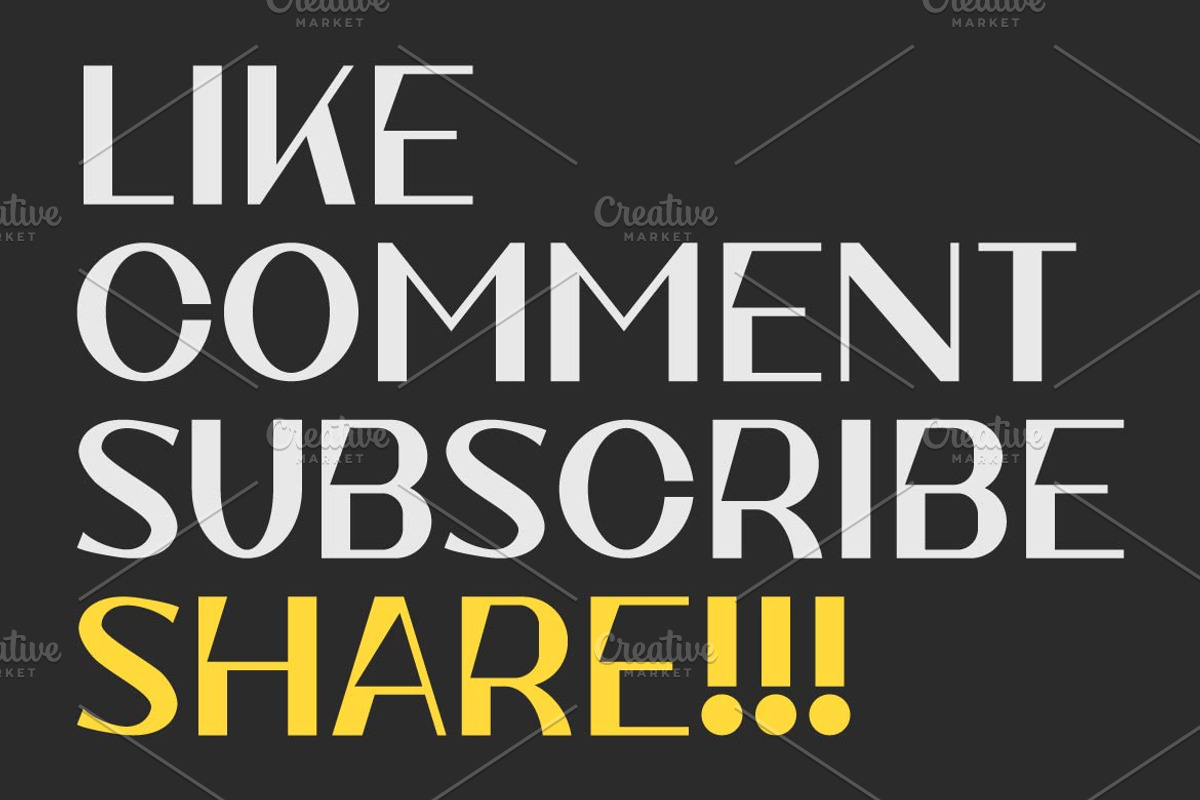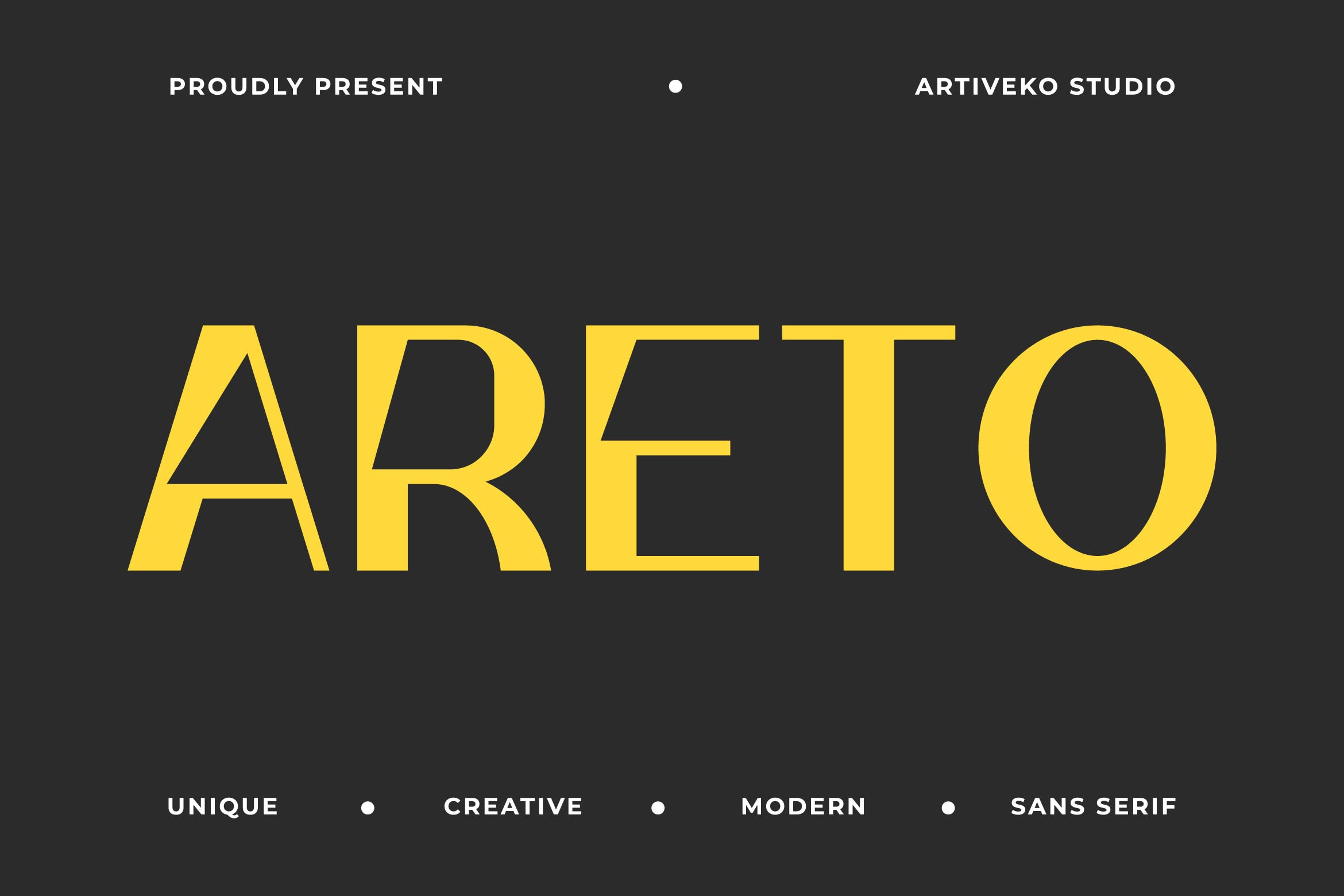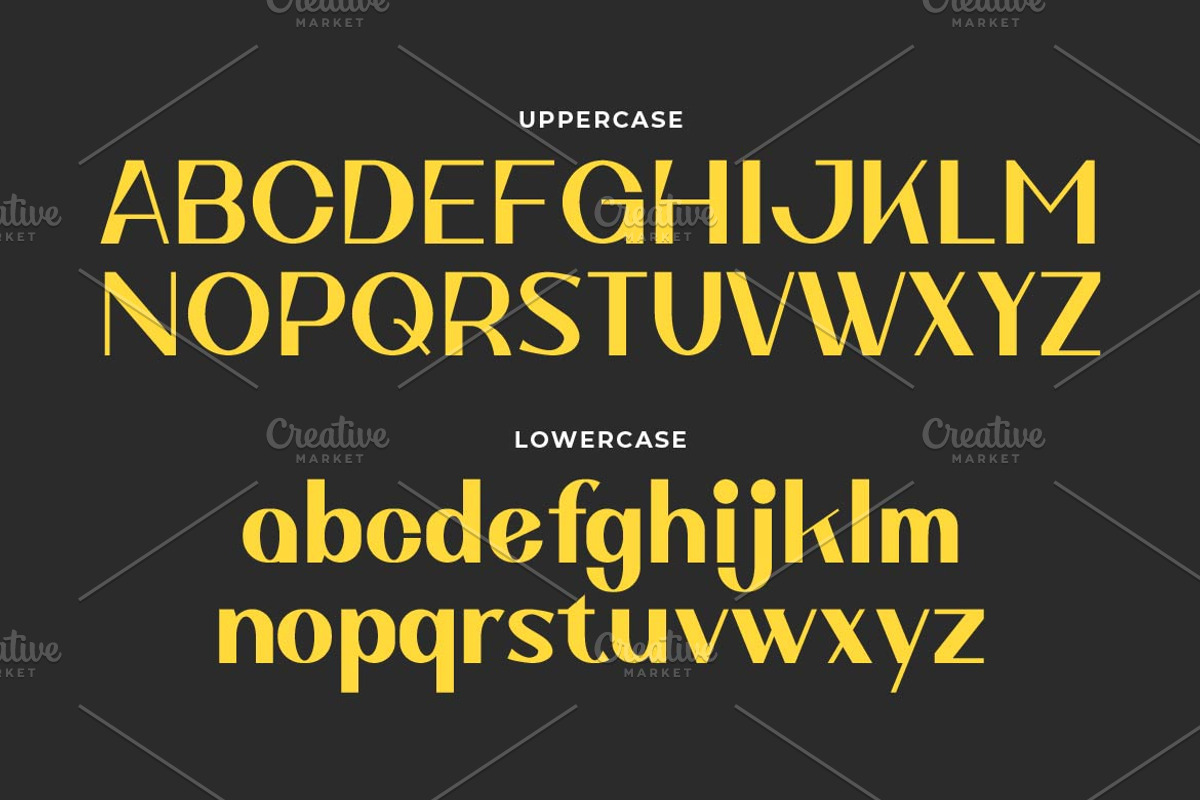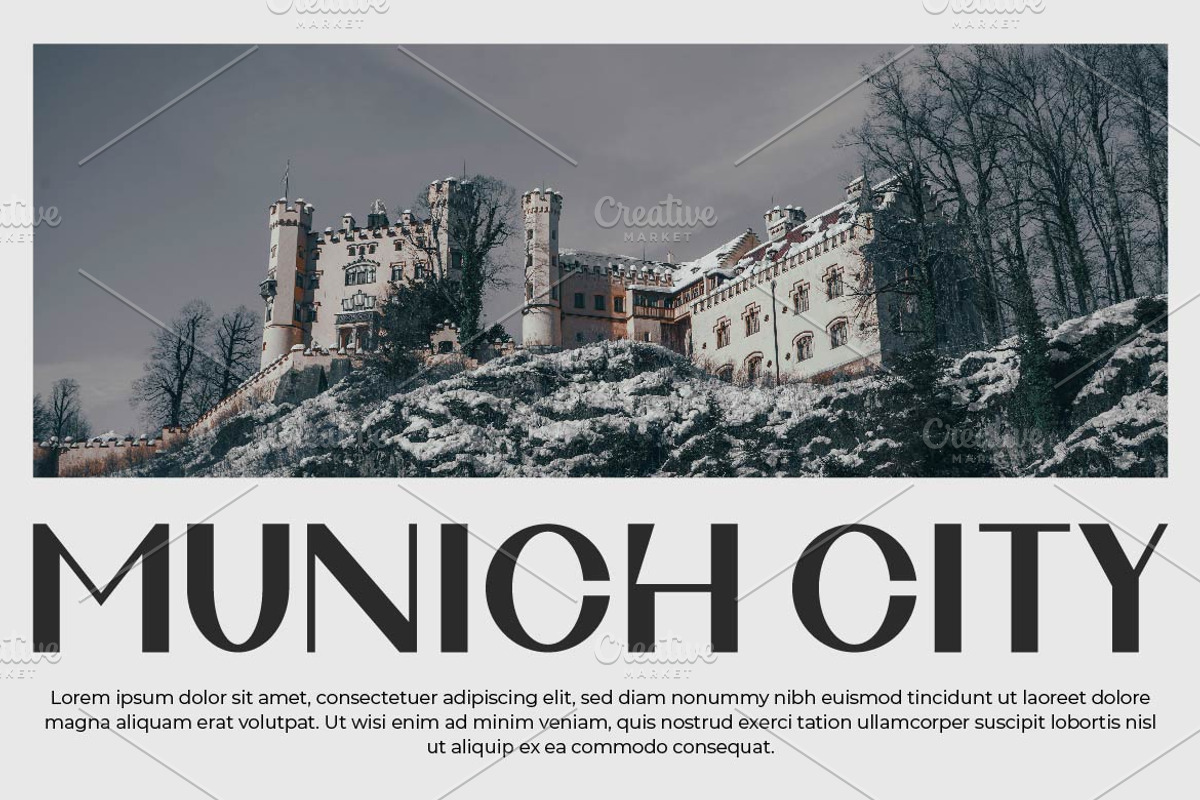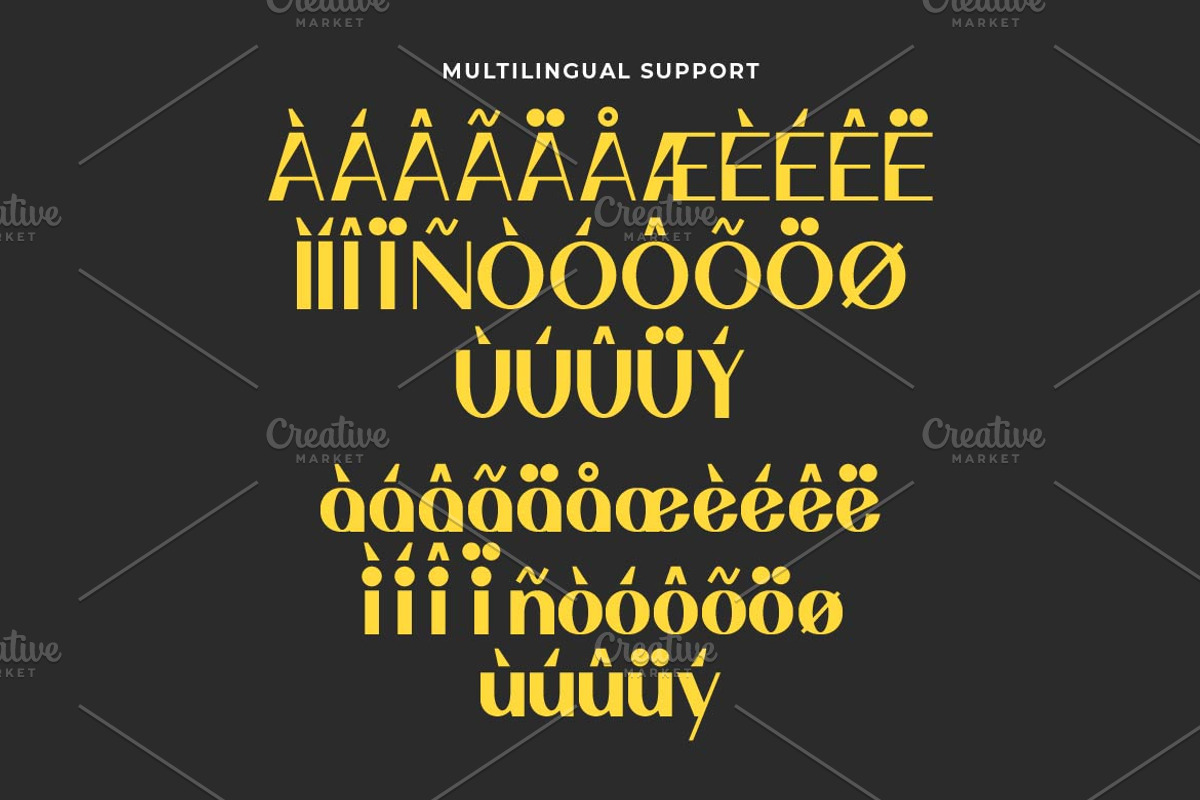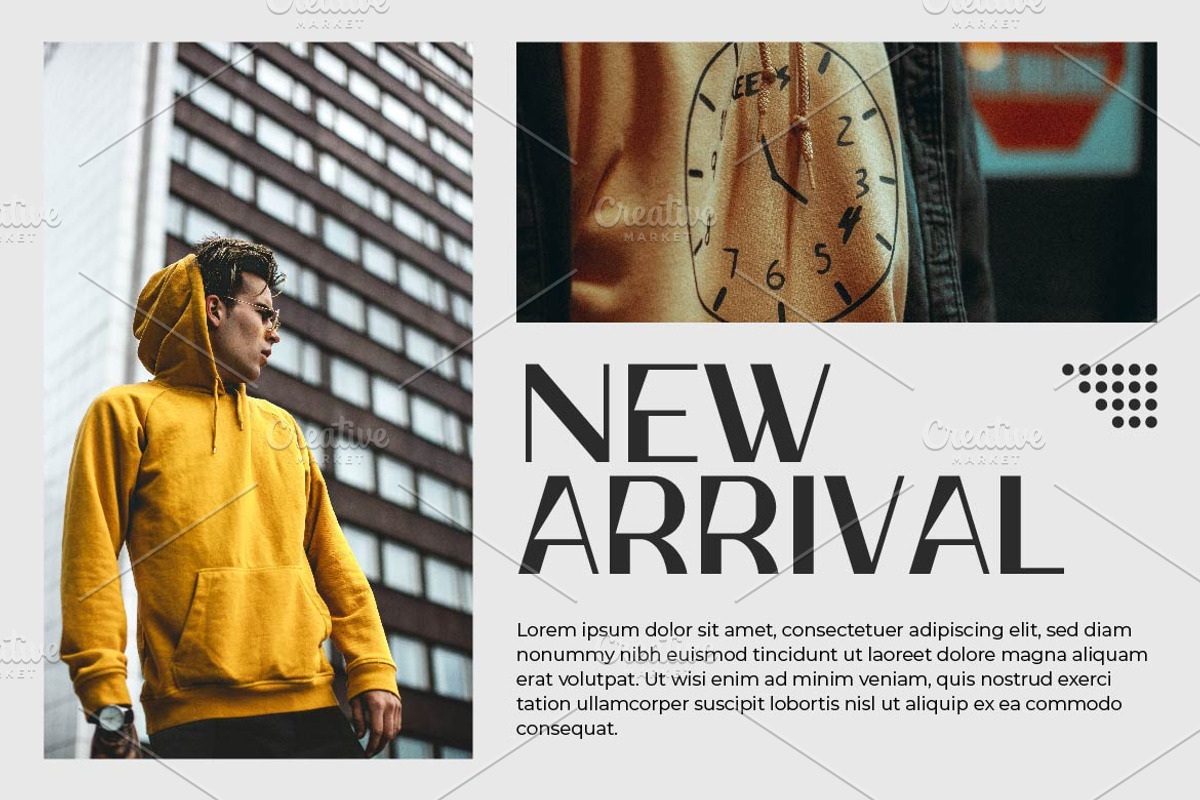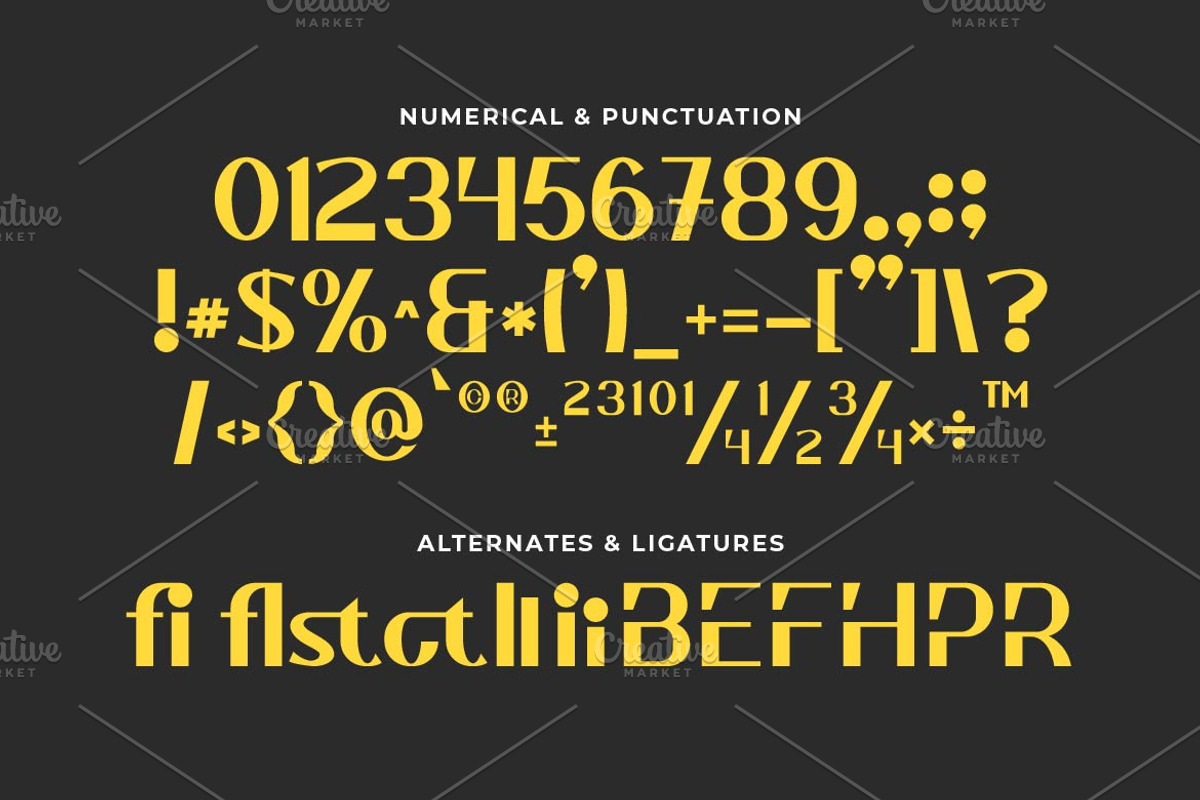
Areto Display Sans Font
Areto is a bold display sans serif font designed by Iwan Alwan, featuring striking letterforms that command attention and add a modern edge to your projects. Ideal for posters, headlines, logos, and branding, Areto delivers a powerful visual impact with its clean and confident design. With multilingual support, ligatures, and alternates, Areto combines functionality with a bold aesthetic, making it perfect for designs that need to stand out and leave a lasting impression.